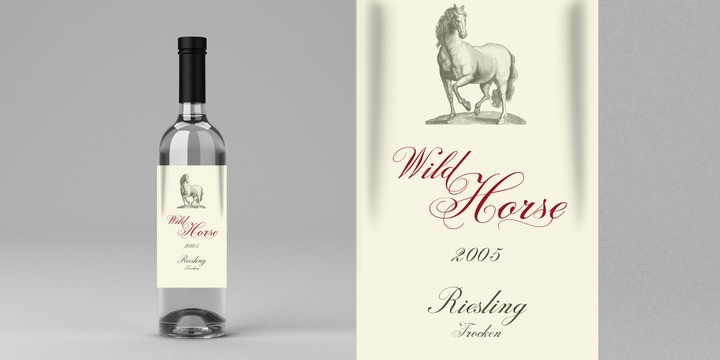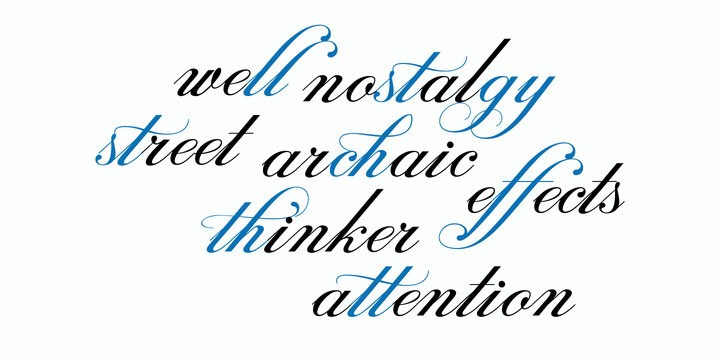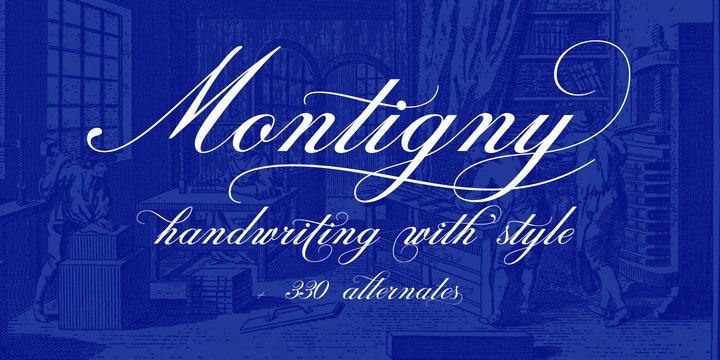
Montigny Font
Montigny is a contemporary calligraphic font with classical roots, based on an 18th-century roundhand script. It is carefully designed, with a special emphasis on the connection of the letters, with high ascenders to give rise to the ornaments of the different letters. There is a special search for high readability.